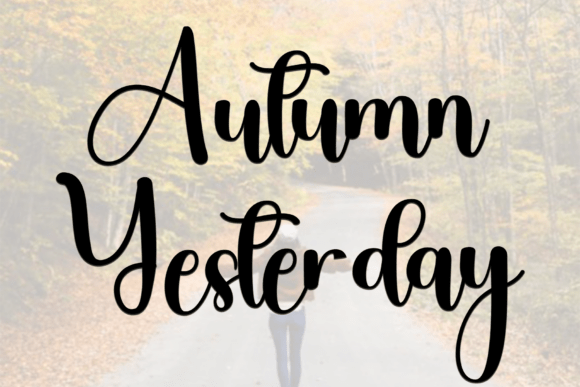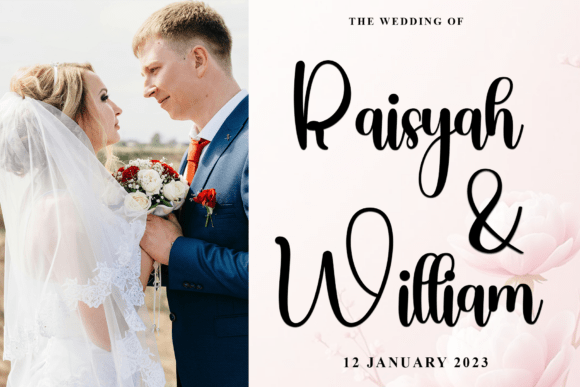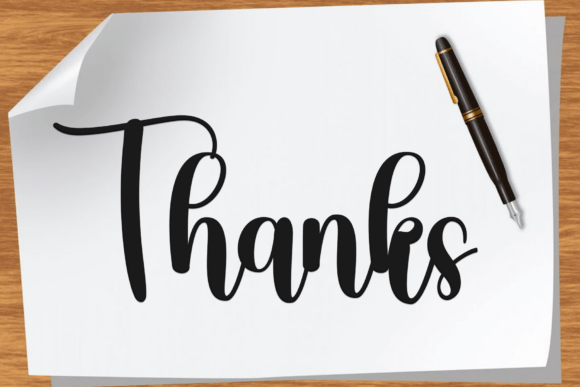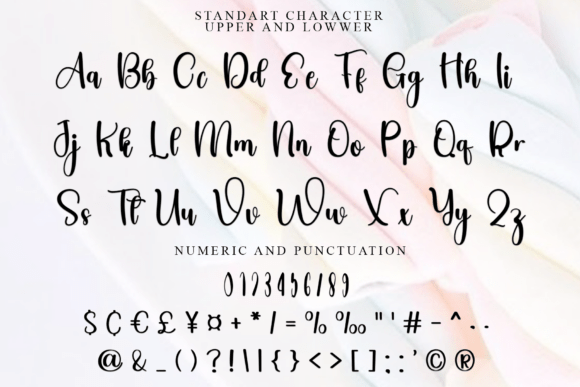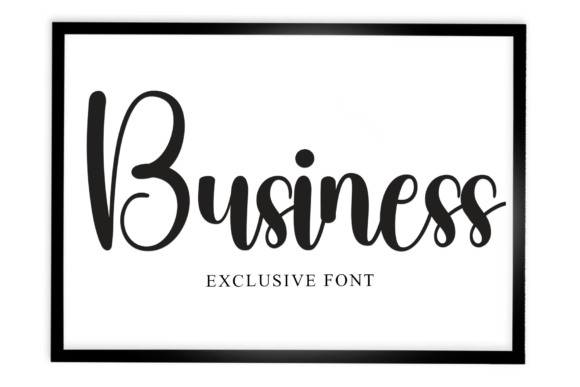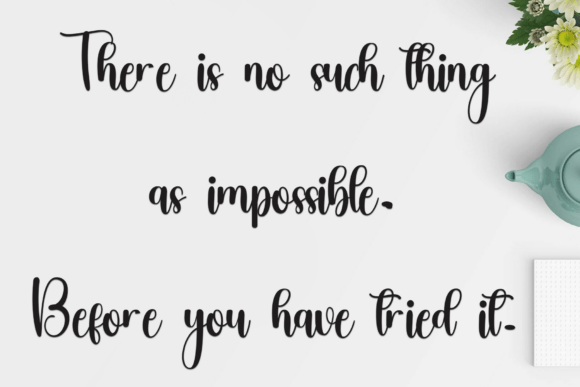
Introducing Daily Calm Font: The Perfect Holiday Companion for Designers and Crafters
As the holiday season approaches, designers and crafters are on the lookout for typography that captures the magic and cheer of this special time of year. Look no further than the Daily Calm Font, a festive and merry typeface that embodies the spirit of the holidays. With its decorative elements and whimsical flair, this font is sure to add a touch of enchantment to your designs and projects.
Daily Calm Font is a beautifully crafted typeface that exudes a sense of joy and festivity. Its decorative elements, such as intricate swirls and flourishes, evoke the nostalgia and wonder of the holiday season. Whether you’re designing greeting cards, gift tags, or holiday-themed projects, this font is the perfect choice to add a touch of magic to your words.
Daily Calm Font is specifically designed with holiday projects in mind. Its whimsical and cheerful ambiance makes it ideal for a wide range of applications, including:
- Greeting cards: Create beautiful and unique holiday cards that will stand out from the crowd.
- Gift tags: Add a personal touch to your gifts with custom gift tags that feature the Daily Calm Font.
- Holiday-themed projects: From invitations to party decorations, this font is perfect for any holiday project.
One of the best features of the Daily Calm Font is that it is PUA (Private Use Area) encoded. This means that you can access all of the amazing glyphs and ligatures with ease, without having to worry about complicated font editing software. With the Daily Calm Font, you can simply select the characters you want to use and you’re good to go!
Bringing a Cheerful and Nostalgic Ambiance to Your Words
The Daily Calm Font is designed to evoke a sense of nostalgia and cheerfulness. Its whimsical flourishes and decorative elements transport you back to a time of childhood wonder and holiday magic. By using this font in your designs, you can tap into this sense of nostalgia and create projects that are truly special.
Let Your Typography Shine
With the Daily Calm Font, you can let your typography shine and add a touch of magic to your designs. Whether you’re a professional designer or a crafter, this font is the perfect choice for anyone looking to create beautiful and unique holiday projects. So why settle for ordinary typography when you can have a font that truly captures the spirit of the holiday season?
Beautiful Font for Beautiful Designs
The Daily Calm Font is a beautiful and versatile typeface that is perfect for designers and crafters who want to create stunning holiday projects. With its decorative elements, whimsical flair, and PUA encoding, this font has everything you need to create beautiful and unique designs. So why wait? Get the Daily Calm Font today and start creating your own magical holiday projects!
Key Features of Daily Calm Font
- Festive and merry typeface perfect for holiday projects
- Decorative elements and whimsical flair evoke a sense of nostalgia and wonder
- Ideal for greeting cards, gift tags, and holiday-themed projects
- Perfect for designers and crafters who want to create unique and beautiful holiday projects
In conclusion, the Daily Calm Font is a must-have for designers and crafters who want to create stunning holiday projects. With its festive and merry typeface, decorative elements, and PUA encoding, this font has everything you need to add a touch of magic to your designs. So why wait? Get the Daily Calm Font today and start creating your own beautiful and unique holiday projects!